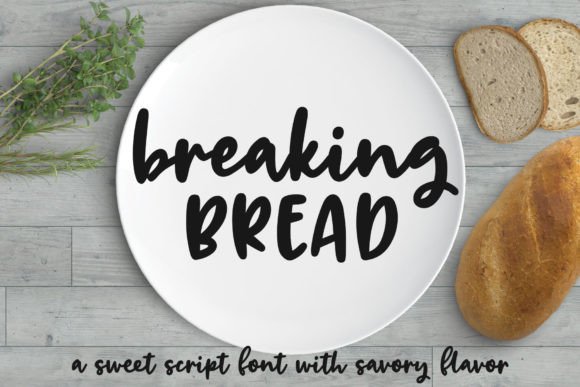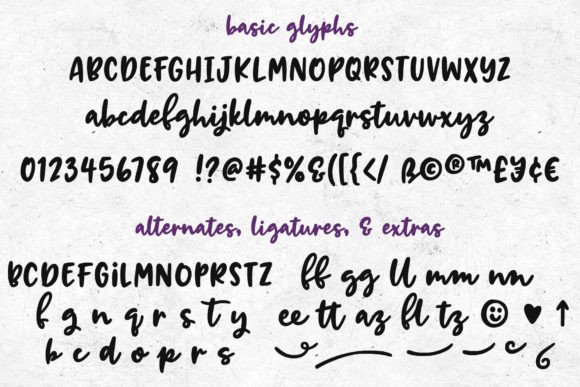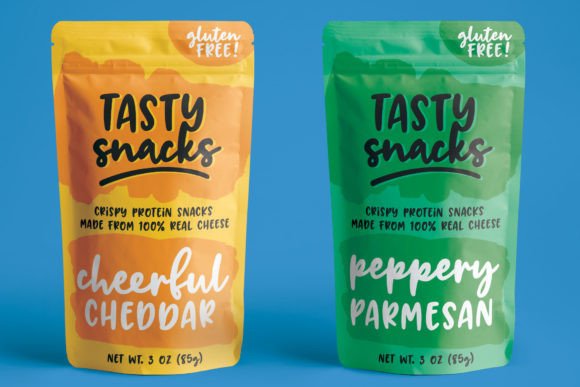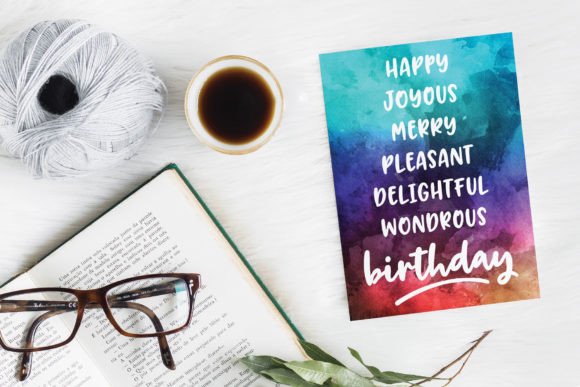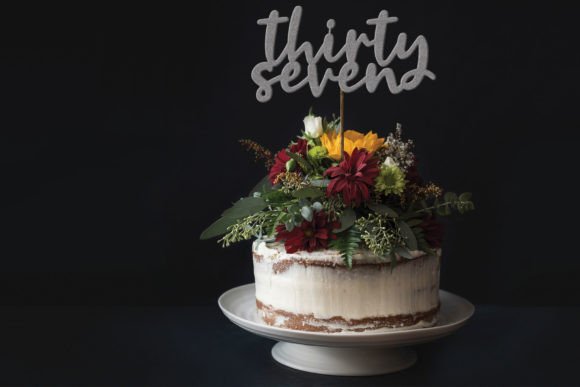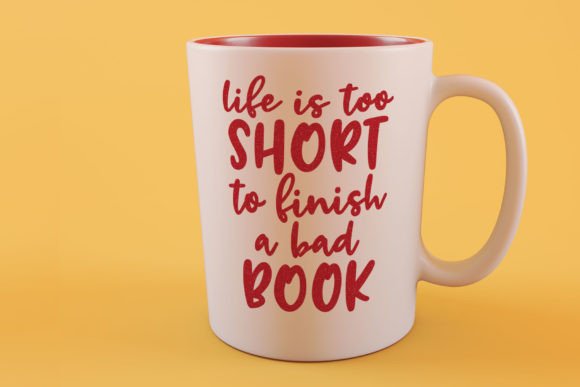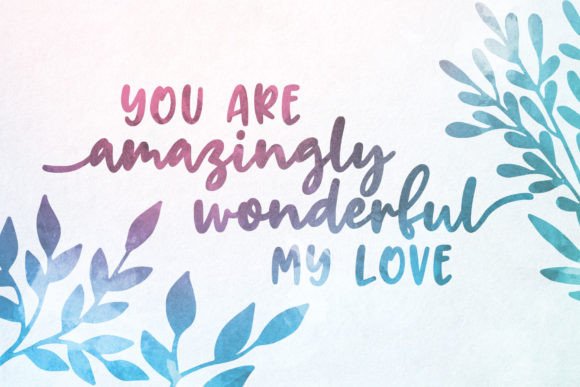
Breaking Bread Font
About Breaking Bread Font
Breaking Bread is not just a font; it’s a delightful combination of chunky cursive script and a hand-lettered sans-serif uppercase set, crafted with a specific purpose in mind—topping a cake! This unique typeface brings a playful and inviting feel to your designs, making it perfect for a variety of creative projects.
Here’s what Breaking Bread has to offer:
– **Chunky Cursive Script:** The heavy connecting script in Breaking Bread adds a touch of fun and charm. It’s thick, expressive, and ideal for making a bold statement.
– **Hand-Lettered Sans-Serif Uppercase Set:** Complementing the cursive script, the uppercase set provides versatility, allowing you to experiment with different lettering styles, from all lowercase to all uppercase or title case.
– **Alternates and Ligatures:** Breaking Bread includes a variety of alternates and ligatures, ensuring a natural and hand-written look, especially in double-letter words. These thoughtful additions add character and uniqueness to your text.
– **Extra Characters and Swashes:** Enhance your designs with extra characters and swashes that bring a touch of pizazz. These elements are perfect for creating eye-catching logos, product packaging, or any project where a bit of flair is desired.
– **Language Support:** Breaking Bread goes beyond the basics with over 300 extended Latin characters, providing support for various languages such as Catalan, Czech, Danish, Finnish, French, German, Italian, Polish, Portuguese, Spanish, Swedish, Turkish, and more.
Whether you’re crafting a mug, designing a t-shirt, creating a logo, or working on product packaging, Breaking Bread adds a touch of sweetness and creativity to your projects. Embrace the spirit of collaboration and break bread with this delightful font!